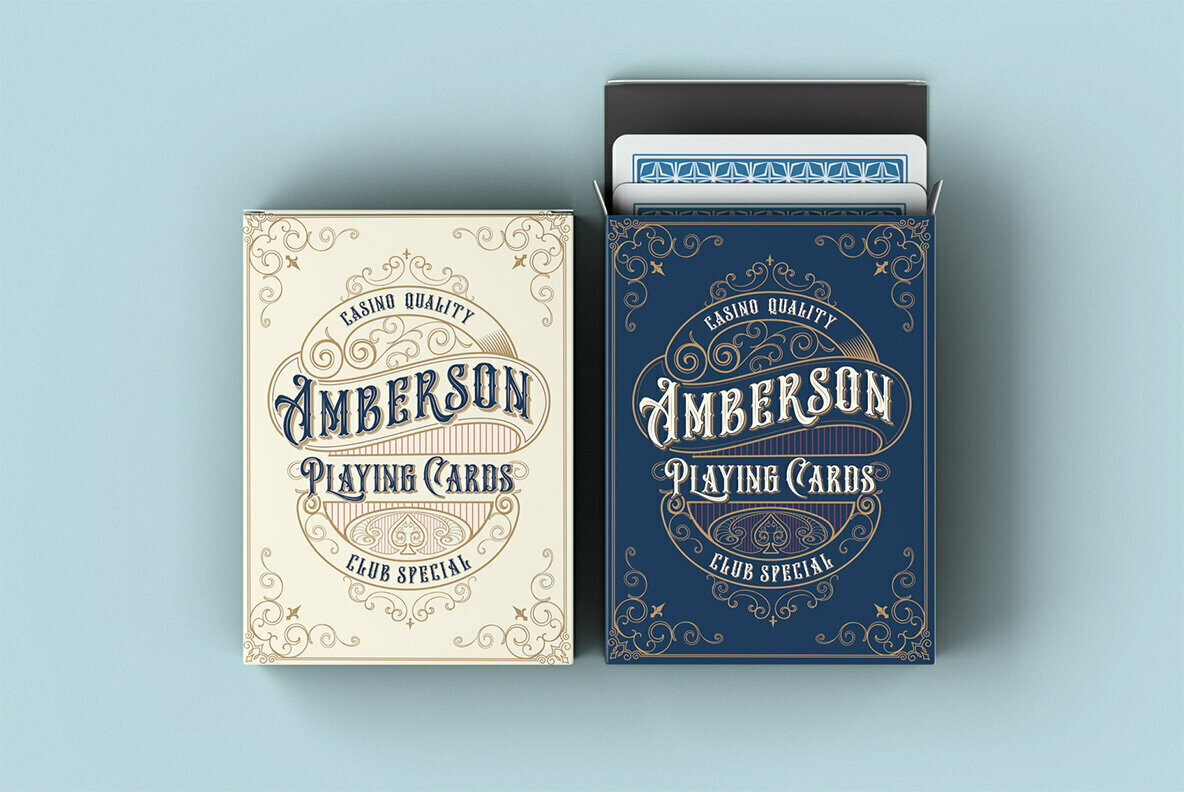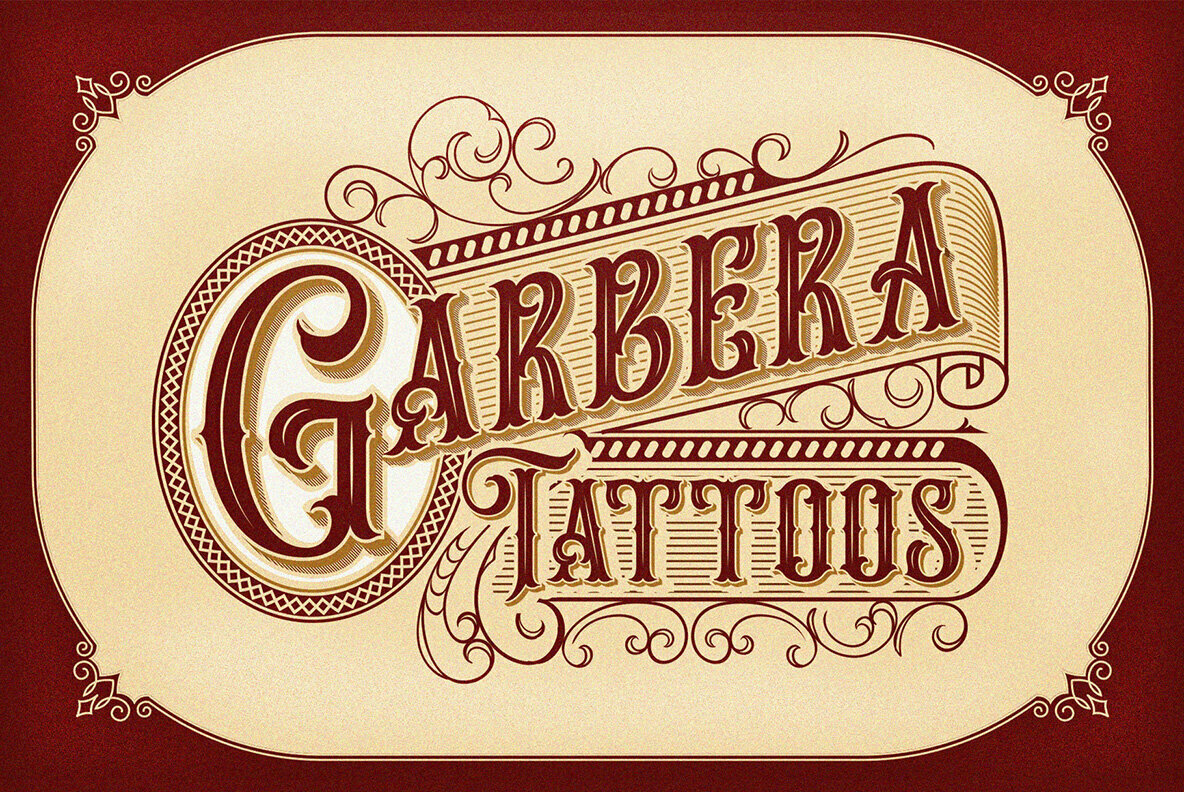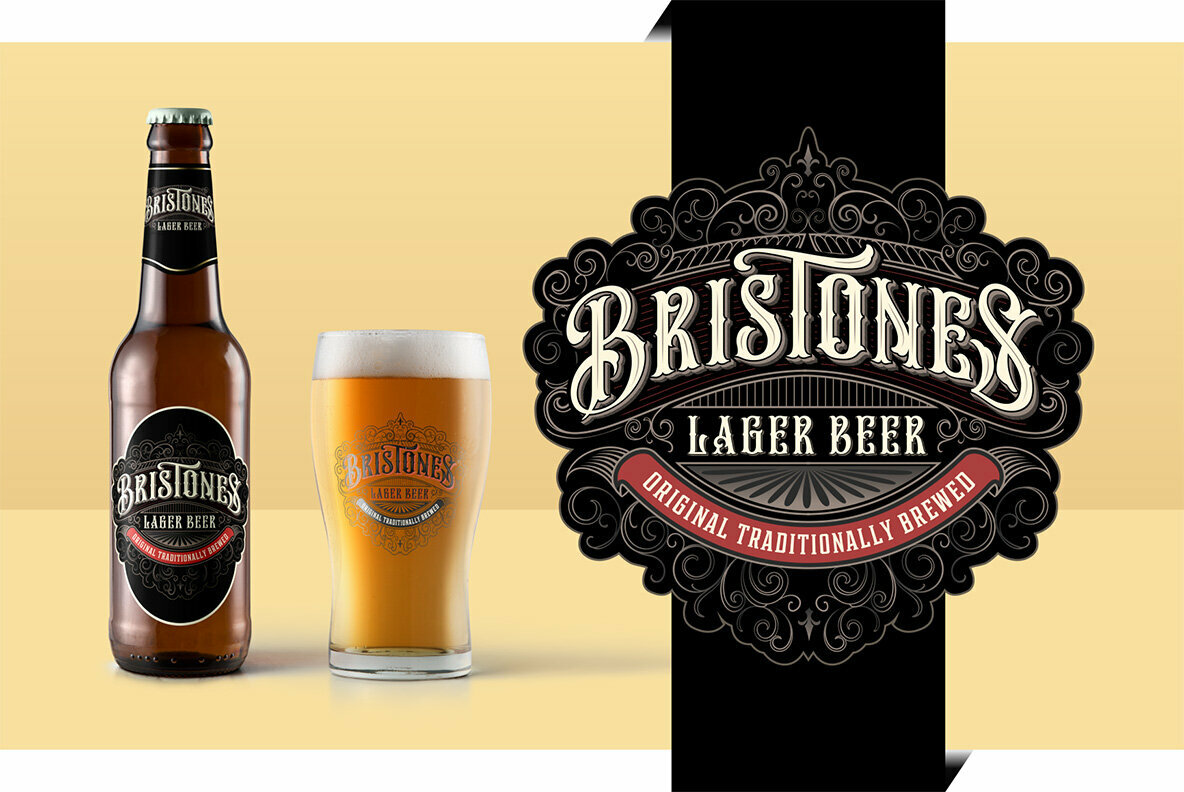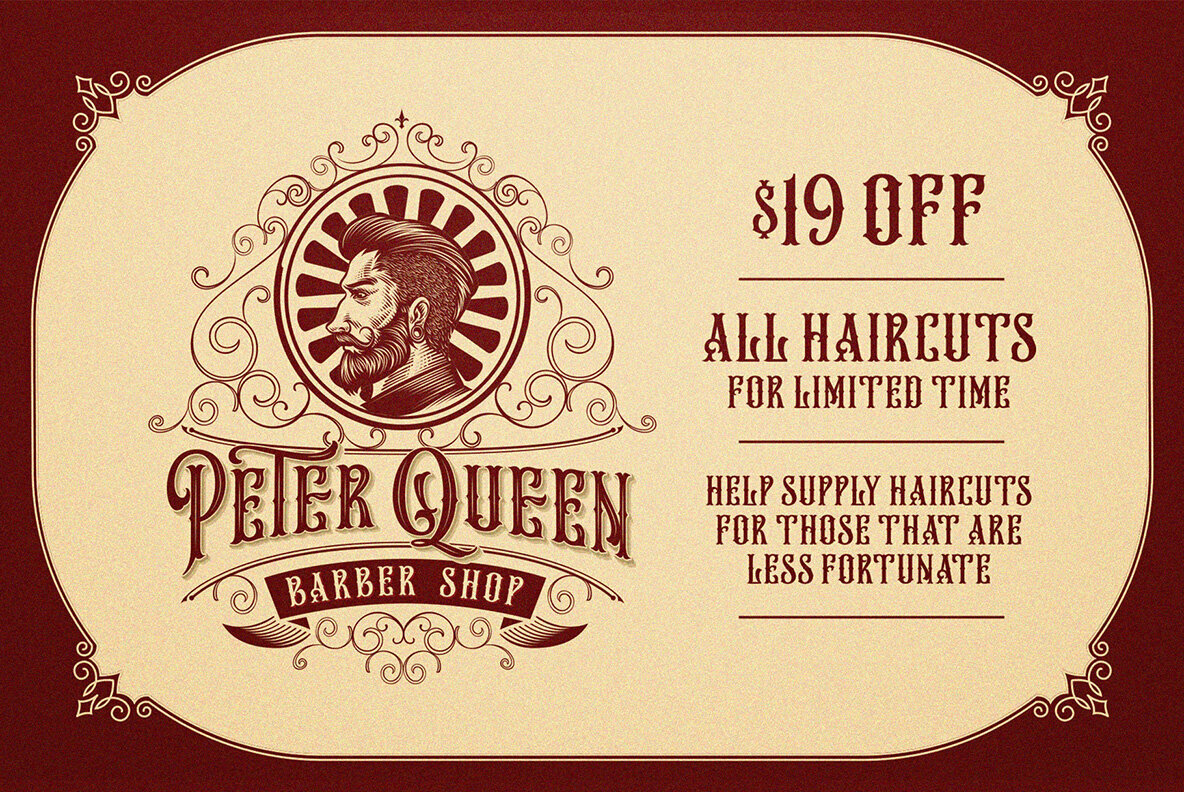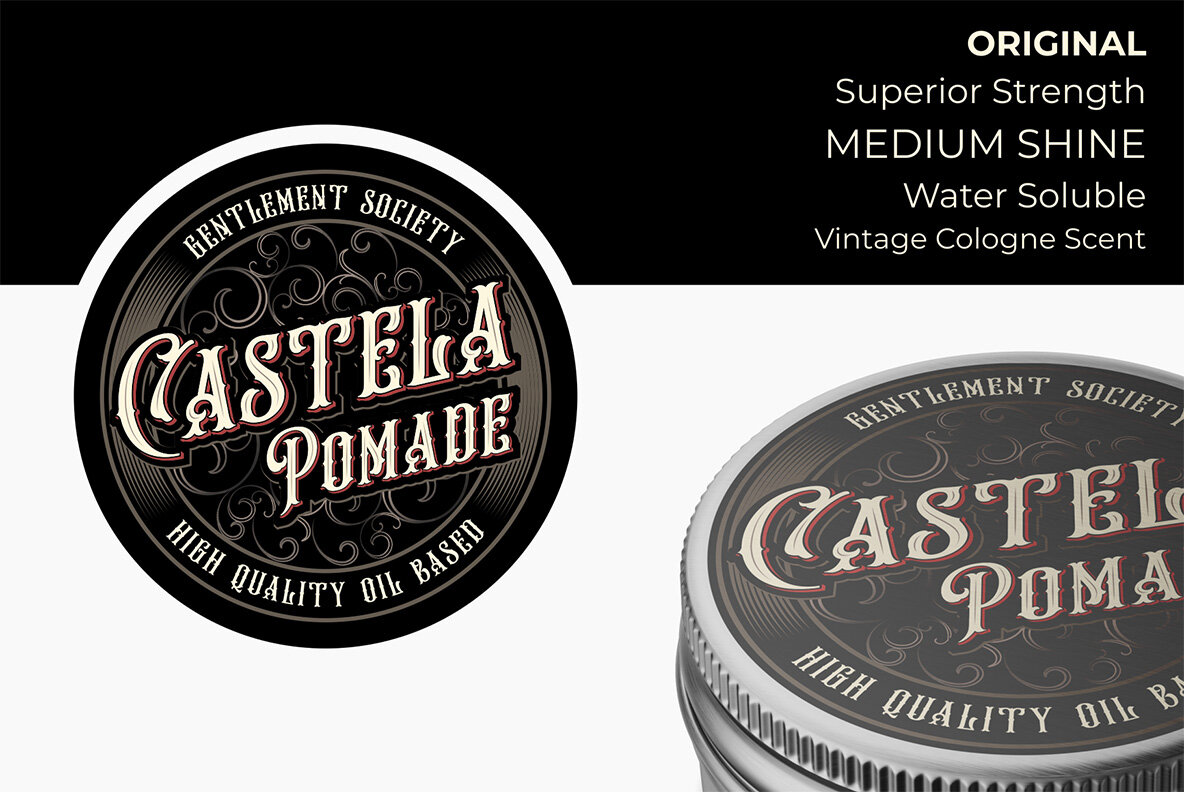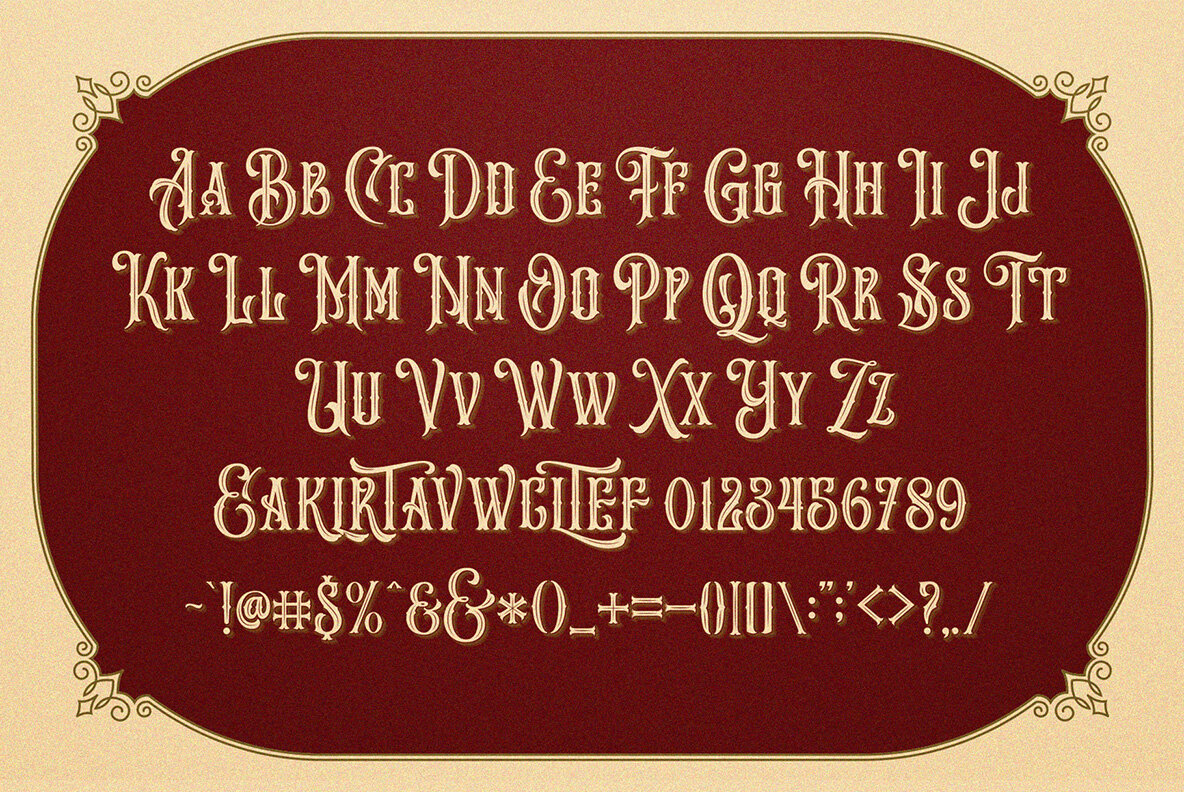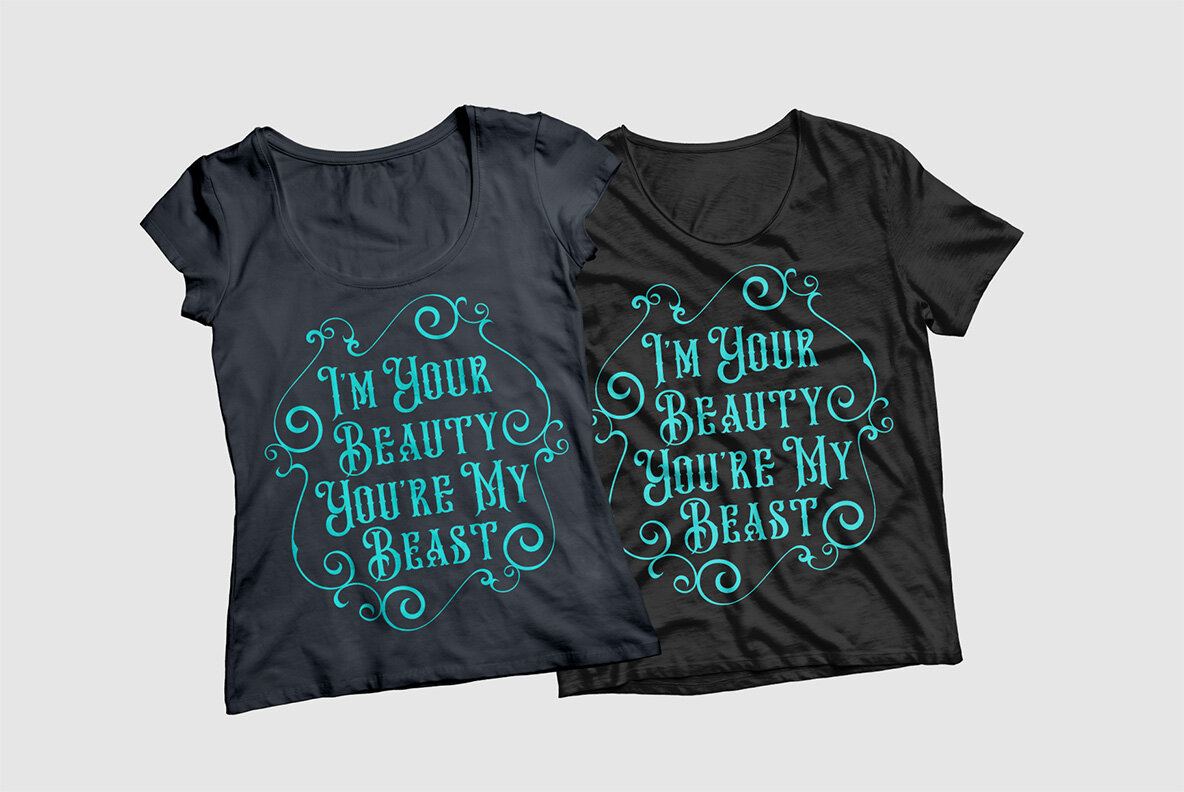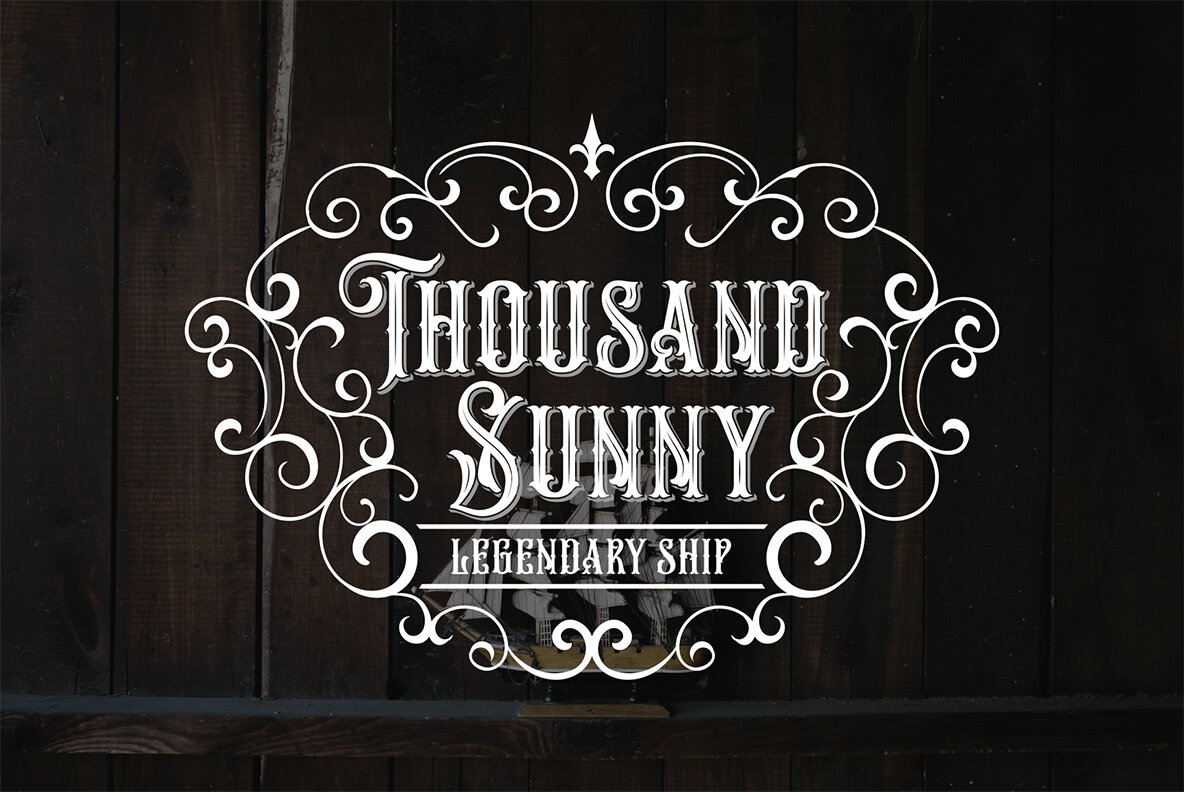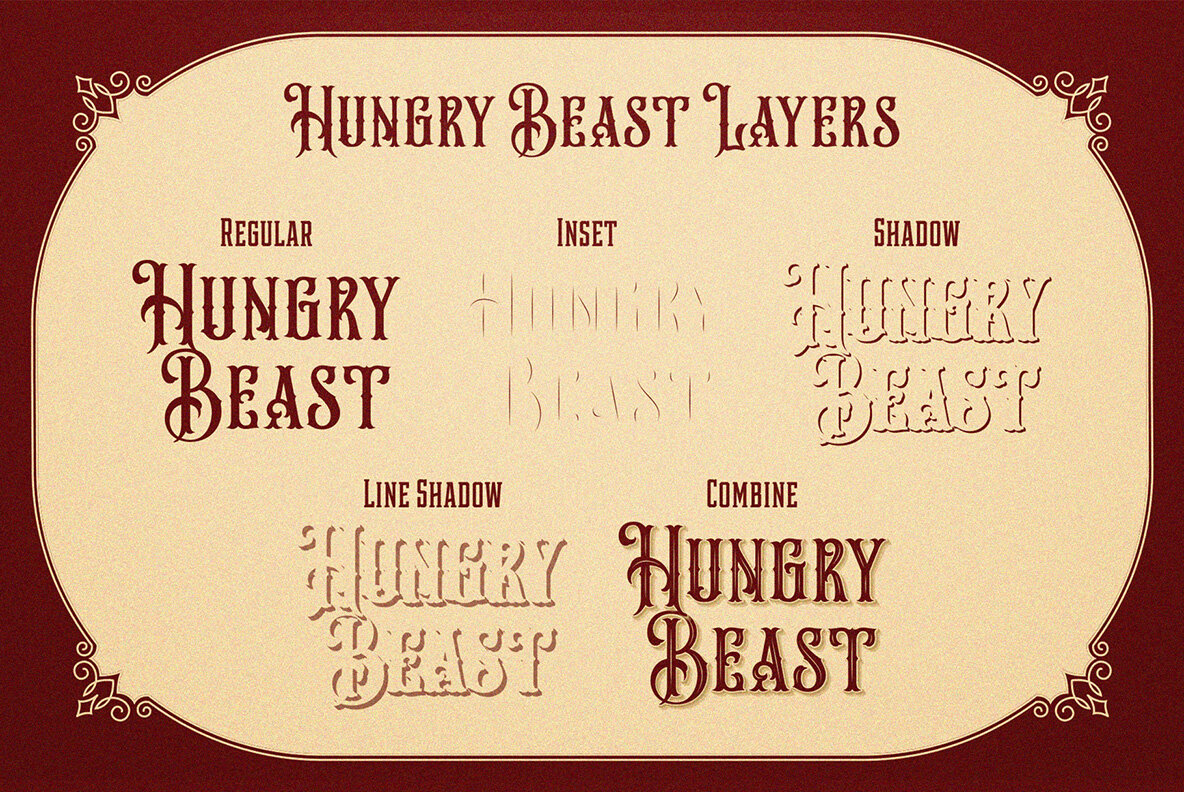
Hungry Beast Font
Hungry Beast Regular
Hungry Beast Inset
Hungry Beast Line Shadow
Hungry Beast Ornament
Hungry Beast Shadow
Hungry Beast captures the essence of Victorian design with its nostalgic flair. Ideal for displays, this typeface evokes the charm of bygone eras found in traditional signage and vintage prints. Its layered system adds depth, allowing for unique creative expressions.Hungry Beast: A Victorian Theme Typeface
Hungry Beast serves as a robust tool for those seeking exceptional typographic detail in their work.